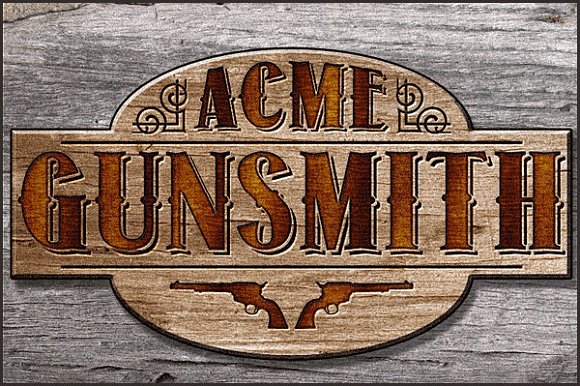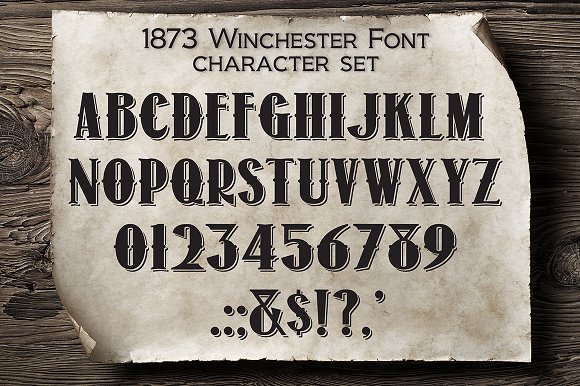
1873 Winchester Font
About 1873 Winchester Font
Old time font that’s just as good for high end mustache wax as it is for gritty and dirty wanted posters.